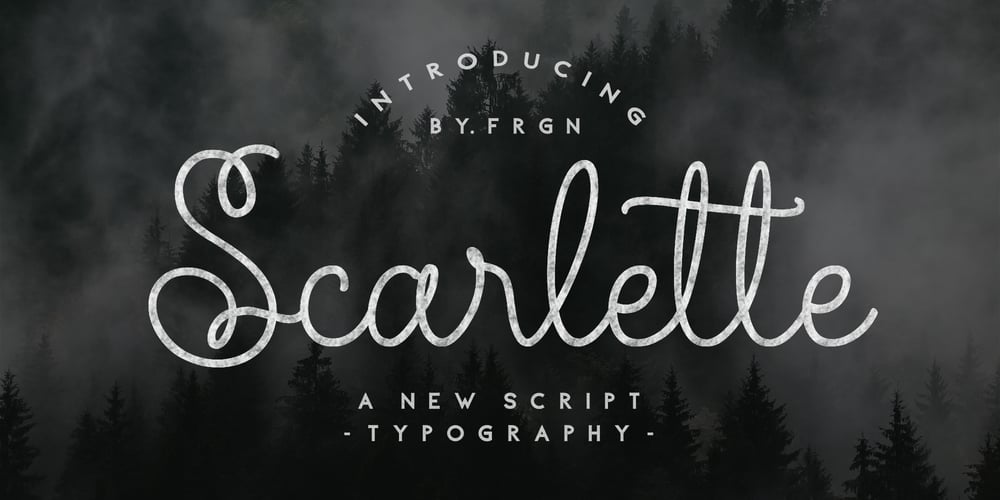
Scarlette Script Font Family was designed by Fajar Gunawan and published by Fargun Studio. Scarlette Script contains 1 styles and family package options. Introducing Scarlette Script, a modern mono-line script font. Scarlette Mono-Line Script will be perfect for many different project ex: display, quotes, blog headers, posters, wedding invitations, branding, logo, fashion, apparel, letter, invitations, stationery and more design concept! Alternates The alternative characters were divided into several Open Type features such as Swash, Stylistic Sets, Stylistic Alternates, and Ligature. The Open Type features can be accessed by using Open Type savvy programs such as Adobe Illustrator, Adobe Photoshop , Corel Draw X version, And Microsoft Word. And this Font has given PUA Unicode (specially coded fonts). so that all the alternate characters can easily be accessed in full by a craftsman or designer.